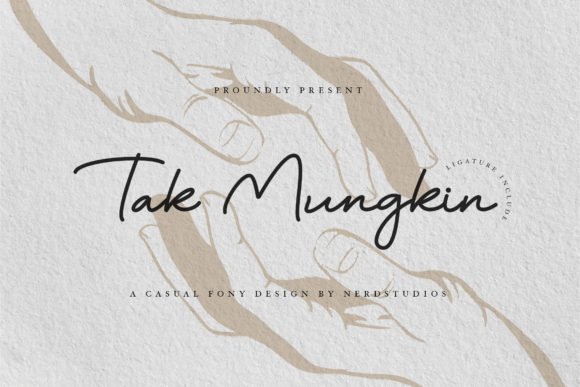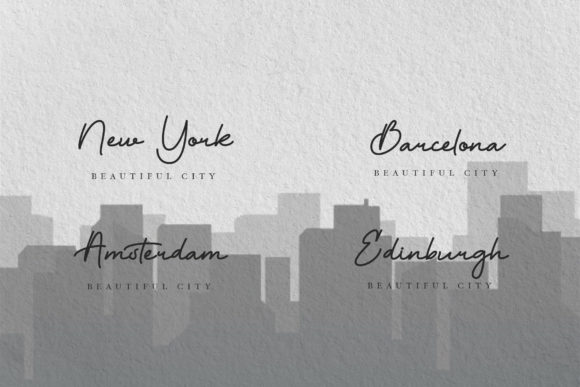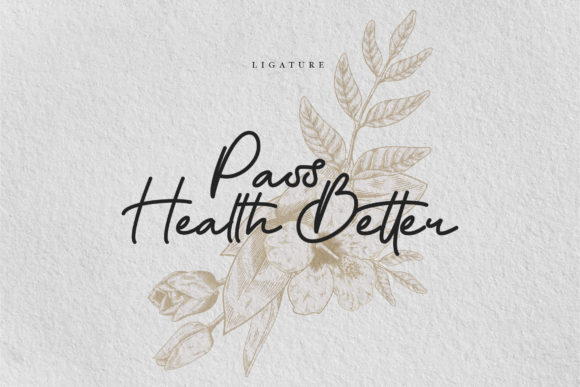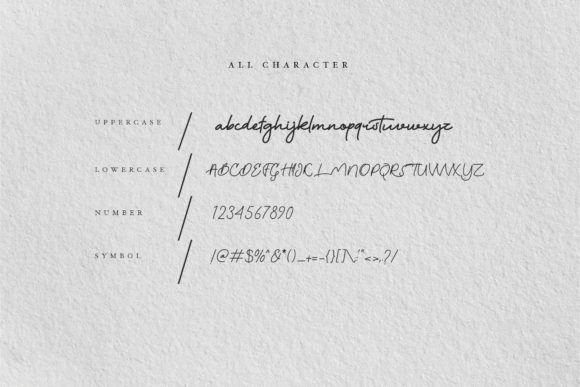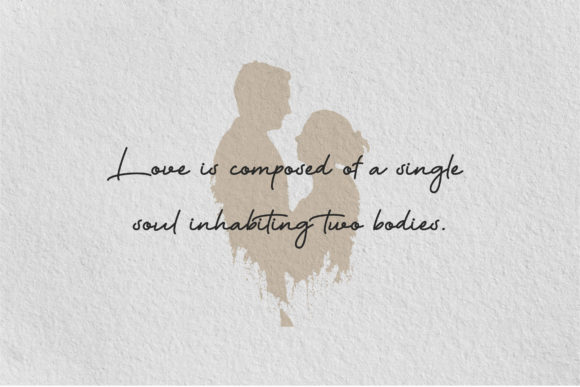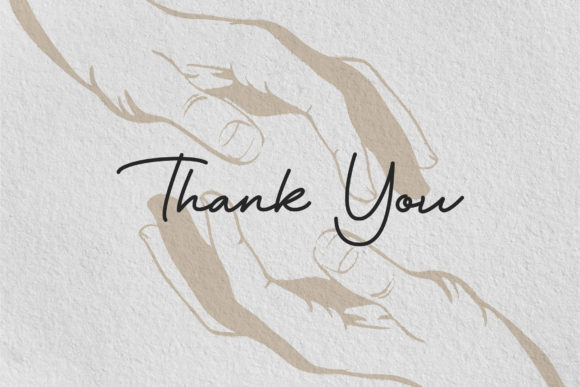
About Tak Mungkin Font
Tak Mungkin is a sweet and friendly handwritten font. Its natural and unique style makes it incredibly fitting to a large pool of designs. The only limit is your imagination!